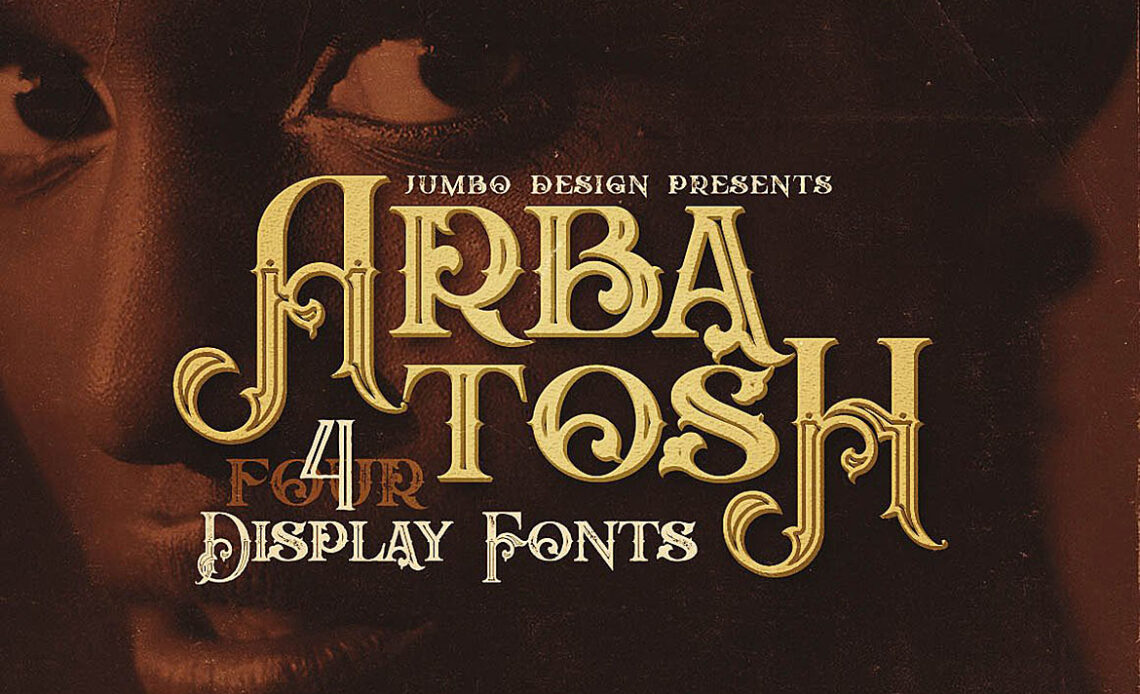
In the realm of digital artistry, Arbatosh Font emerges as a visionary masterpiece, captivating the senses with its intricate design and diverse style options. This remarkable display font, meticulously crafted by JumboDesign, transcends the boundaries of ordinary typography, propelling your creative visions to new heights of brilliance.
Unleash the Timeless Charm of Vintage Aesthetics:
Step into a world of nostalgia and elegance with Arbatosh Font. Its vintage-inspired design evokes a sense of bygone eras, adding a touch of timeless charm to your projects. Whether you're designing logos, posters, or eye-catching headlines, Arbatosh Font transports your audience to a world of retro allure.
Exceptional Legibility and Visual Impact:
Arbatosh Font's carefully crafted letterforms ensure exceptional legibility, even at smaller sizes. Its distinct character set, featuring elegantly curved lines and striking serifs, commands attention and leaves a lasting impression. Whether you're crafting digital content or printed materials, Arbatosh Font guarantees maximum impact and readability.
Boundless Versatility for Limitless Creativity:
With Arbatosh Font, versatility knows no bounds. Its diverse range of stylistic variations empowers you to mold the font to your unique creative vision. Explore an array of options, from delicate flourishes to bold, impactful strokes. Arbatosh Font seamlessly adapts to any design aesthetic, making it the perfect choice for logos, branding, posters, invitations, and more.
A Font That Speaks to Your Soul:
Arbatosh Font is more than just a collection of letters; it's an expression of your individuality and creativity. Its intricate details and refined elegance resonate with your soul, inspiring you to pour your heart and soul into every project. With Arbatosh Font as your creative companion, you'll discover depths of expression you never knew existed.
Embark on an Extraordinary Typographic Journey:
Arbatosh Font beckons you to embark on an extraordinary typographic journey, where imagination reigns supreme. Let your creativity soar as you explore the boundless possibilities of this remarkable font. Its unique charm and versatility will elevate your designs to new heights, leaving your audience spellbound.